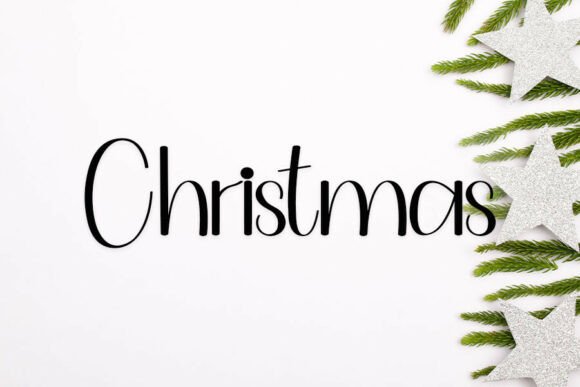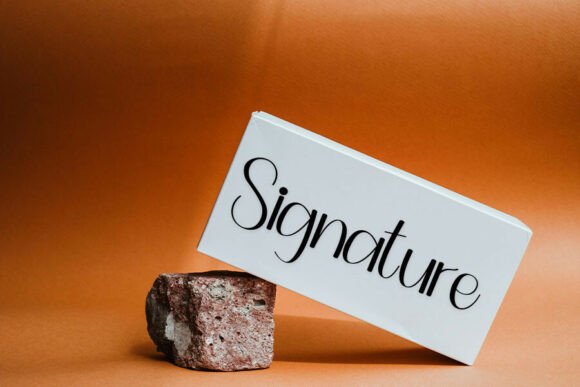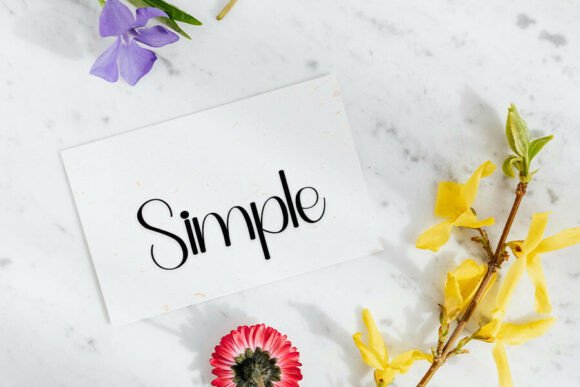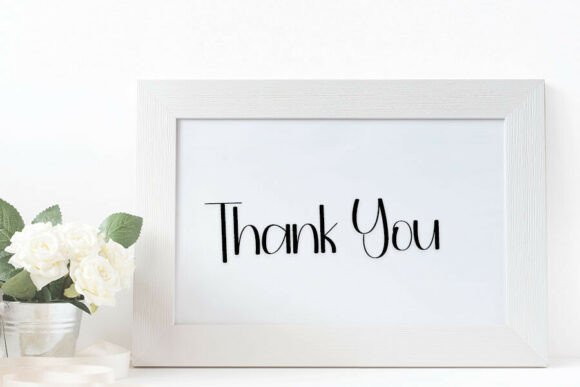
Introducing Farmhouse Font: A Delicate Handwritten Style for Unique Designs
Are you a designer, crafter, or DIY enthusiast looking for a font that adds a touch of personality to your projects? Look no further than Farmhouse Font, a beautiful and delicate handwritten font that’s perfect for creating cool and unique designs. In this article, we’ll explore the features and benefits of Farmhouse Font, and show you how to use it to take your designs to the next level.
Farmhouse Font is a carefully crafted handwritten font that’s designed to bring a touch of rustic charm to your designs. With its delicate lines and whimsical feel, this font is perfect for creating a wide range of projects, from letters and invitations to food product labels and titles.
Whether you’re a professional designer or a crafty DIY enthusiast, Farmhouse Font is a versatile and easy-to-use font that can help you add a personal touch to your designs. Its unique and elegant style makes it perfect for a variety of applications, including:
- Food product labels and packaging
- Signs and banners
Features of Farmhouse Font
So what makes Farmhouse Font so special? Here are just a few of its key features:
- Delicate and whimsical design: Farmhouse Font has a unique and elegant style that’s perfect for creating eye-catching designs.
- Handwritten feel: This font has a warm and personal feel that’s perfect for adding a touch of personality to your designs.
- Versatile: Farmhouse Font can be used for a wide range of projects, from formal invitations to casual social media graphics.
Benefits of Using Farmhouse Font
So why choose Farmhouse Font for your designs? Here are just a few of the benefits of using this beautiful font:
- Adds a personal touch: Farmhouse Font’s unique and elegant style makes it perfect for adding a personal touch to your designs.
- Stand out from the crowd: With its delicate and whimsical design, Farmhouse Font can help your designs stand out from the crowd.
- Perfect for rustic and vintage designs: This font is perfect for creating rustic and vintage-inspired designs that have a warm and welcoming feel.
- Easy to pair with other fonts: Farmhouse Font pairs well with a wide range of other fonts, making it easy to create unique and interesting combinations.
How to Use Farmhouse Font
Farmhouse Font is a beautiful and delicate handwritten font that’s perfect for adding a touch of personality to your designs. With its unique and elegant style, this font is perfect for creating a wide range of projects, from letters and invitations to food product labels and titles. Whether you’re a professional designer or a crafty DIY enthusiast, Farmhouse Font is a versatile and easy-to-use font that can help you take your designs to the next level.